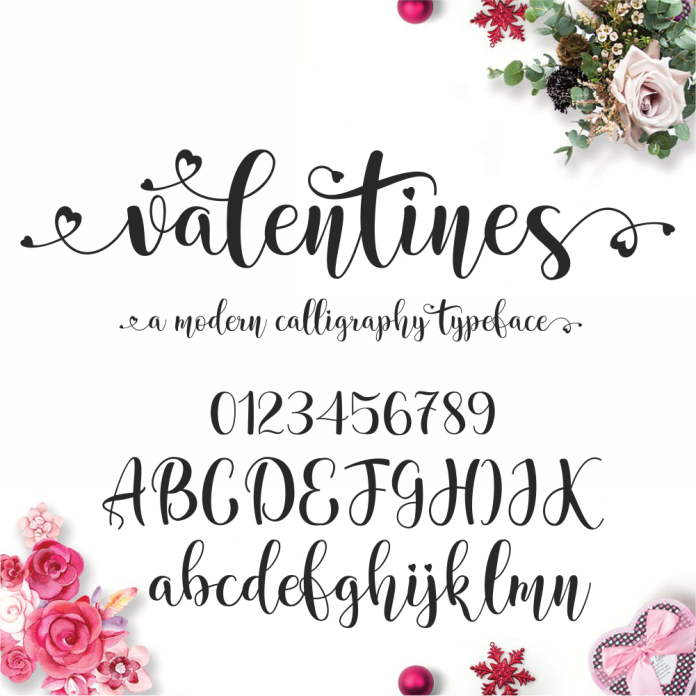
Valentines Script Font is a romantic and elegant font design perfect for creating beautiful Valentine's Day cards, wedding invitations, and love-themed projects. Its flowing script style exudes sophistication and charm, making it ideal for adding a touch of romance to any design.